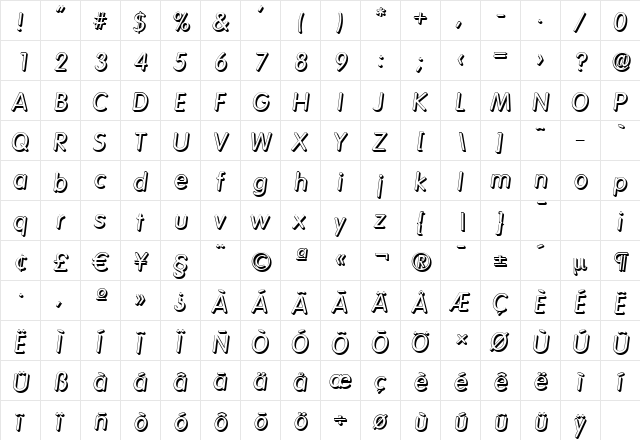
VolkswagenShadow Italic
Design Context for VolkswagenShadow Typeface
VolkswagenShadow brings ornamental detail and strong personality to headlines and identities, where visual impact matters more than quiet functionality. The dynamic lean of this cut emphasises speed and emphasis in any layout.
Font Pairing: Pair with a clean neutral sans-serif for body copy to let VolkswagenShadow's character lead without overwhelming the composition.
Pro Tip: Use VolkswagenShadow exclusively at display sizes — it was designed to be seen, not read at length. Let a neutral companion handle body copy.